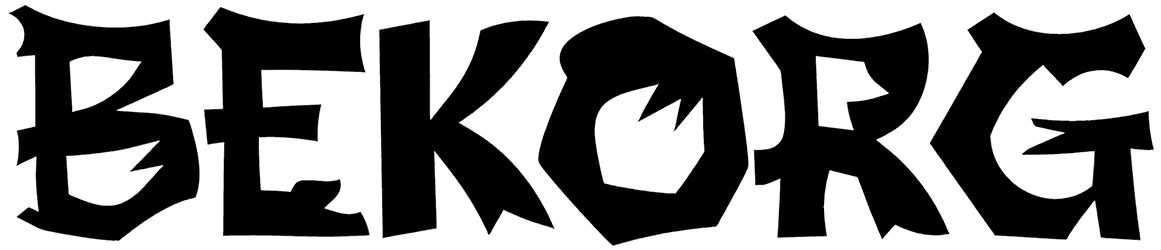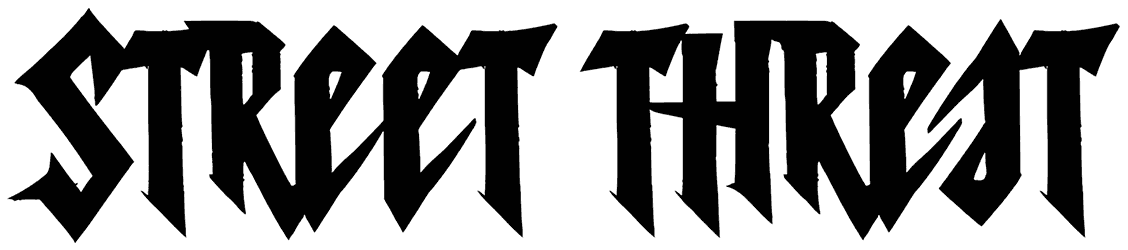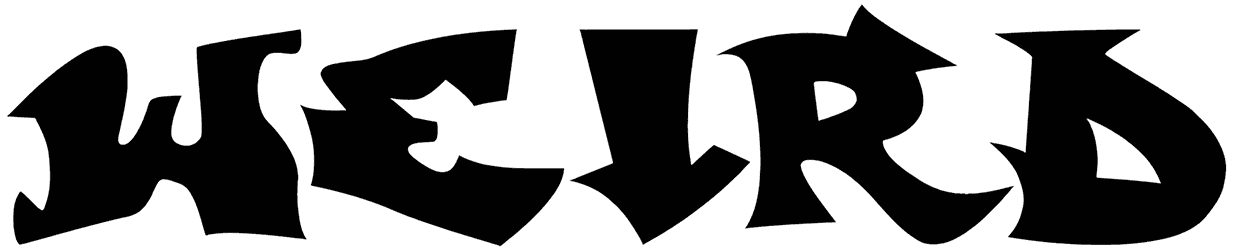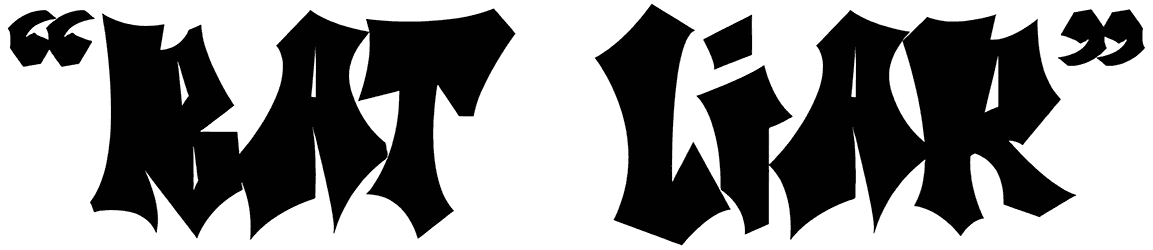
Bat Liar Font
Leave everyone admiring your bold typography with Bat Liar as your main font, and your design will be unforgettable. There may be no lowercase among its characters, but the angular caps of this edgy graffiti font take care of your multiple projects with no problem.
As long as you wish to come off strong, cool, and maybe even a bit rebellious, with just enough hints of urban touch, this all-caps font will get you covered in your next project.